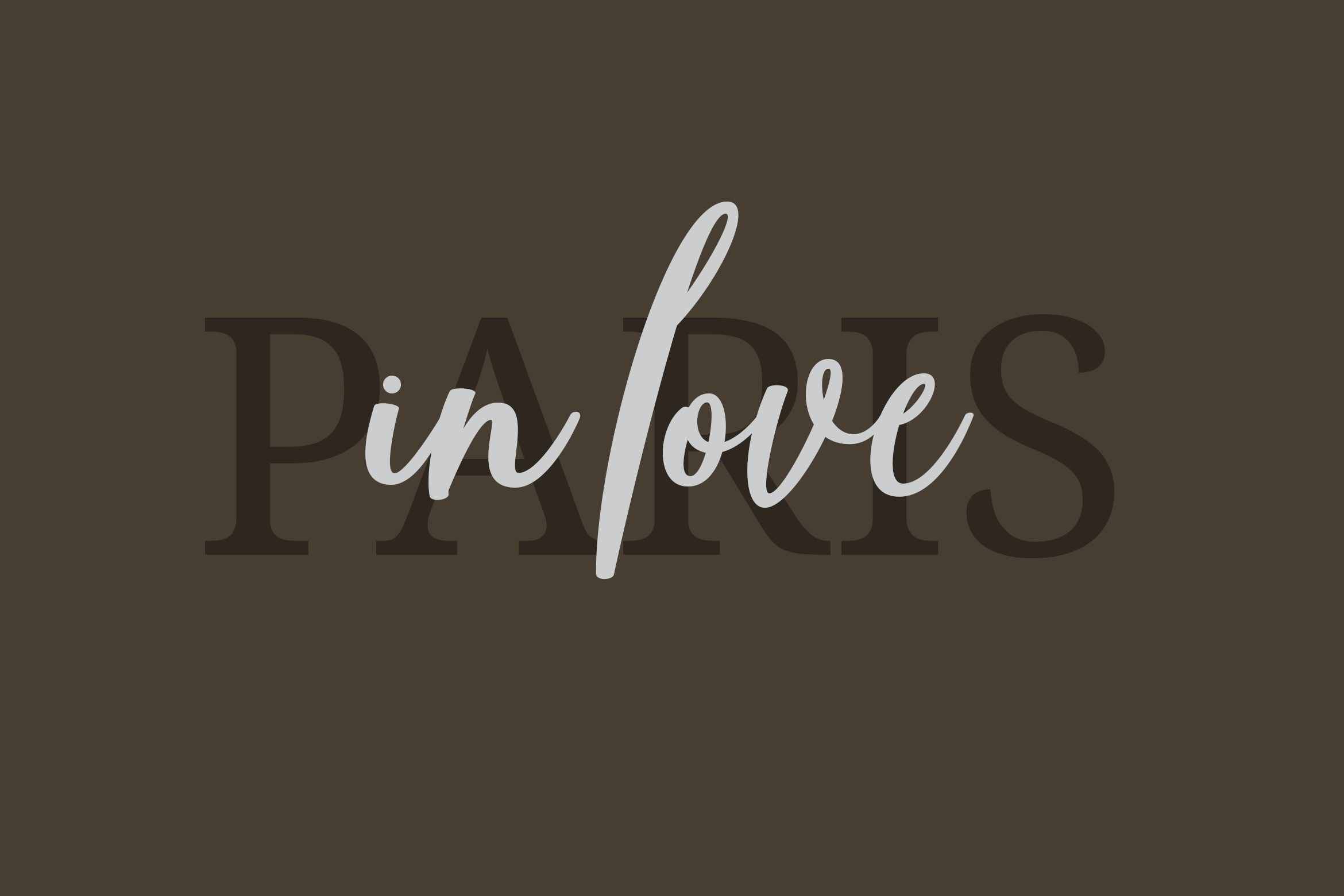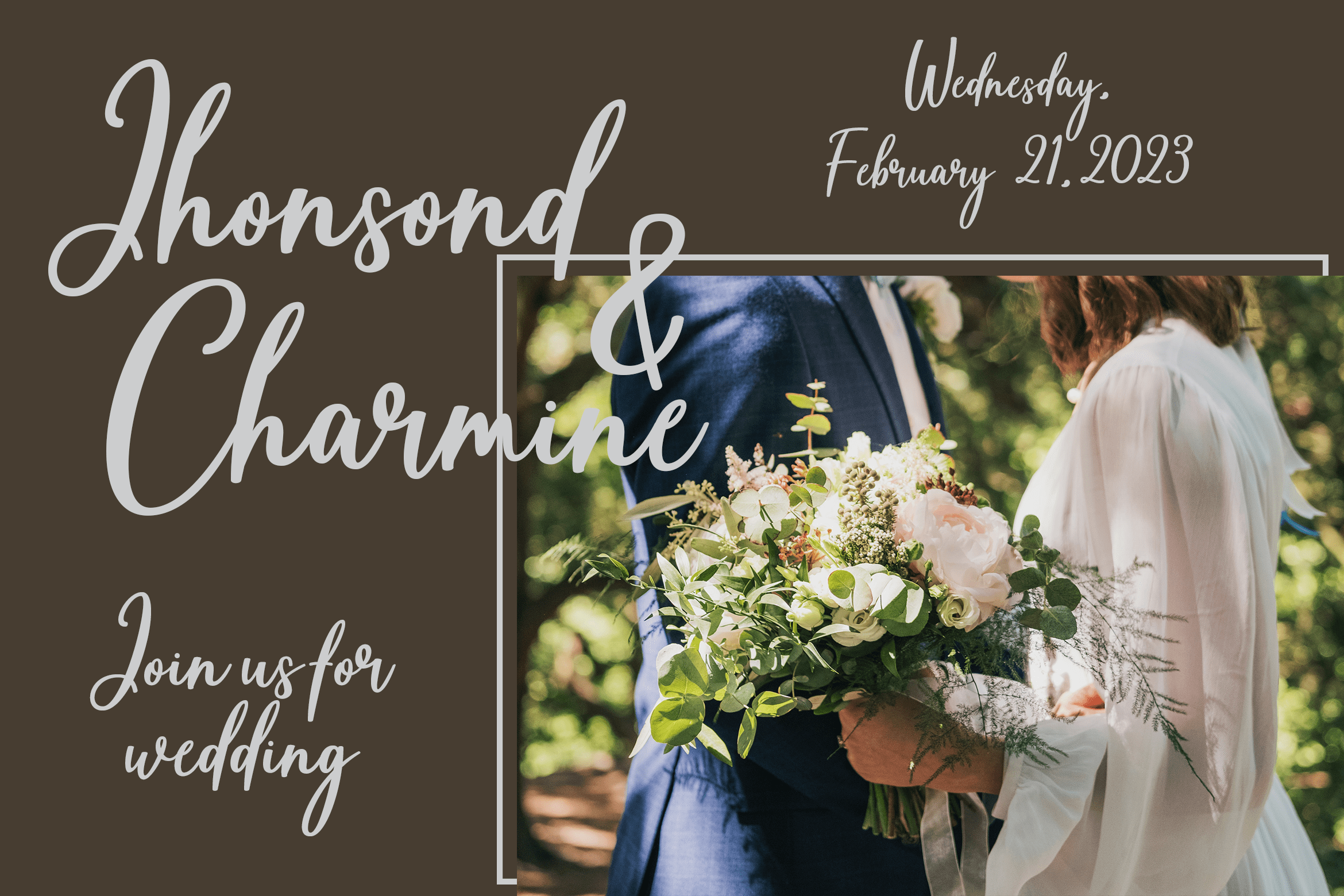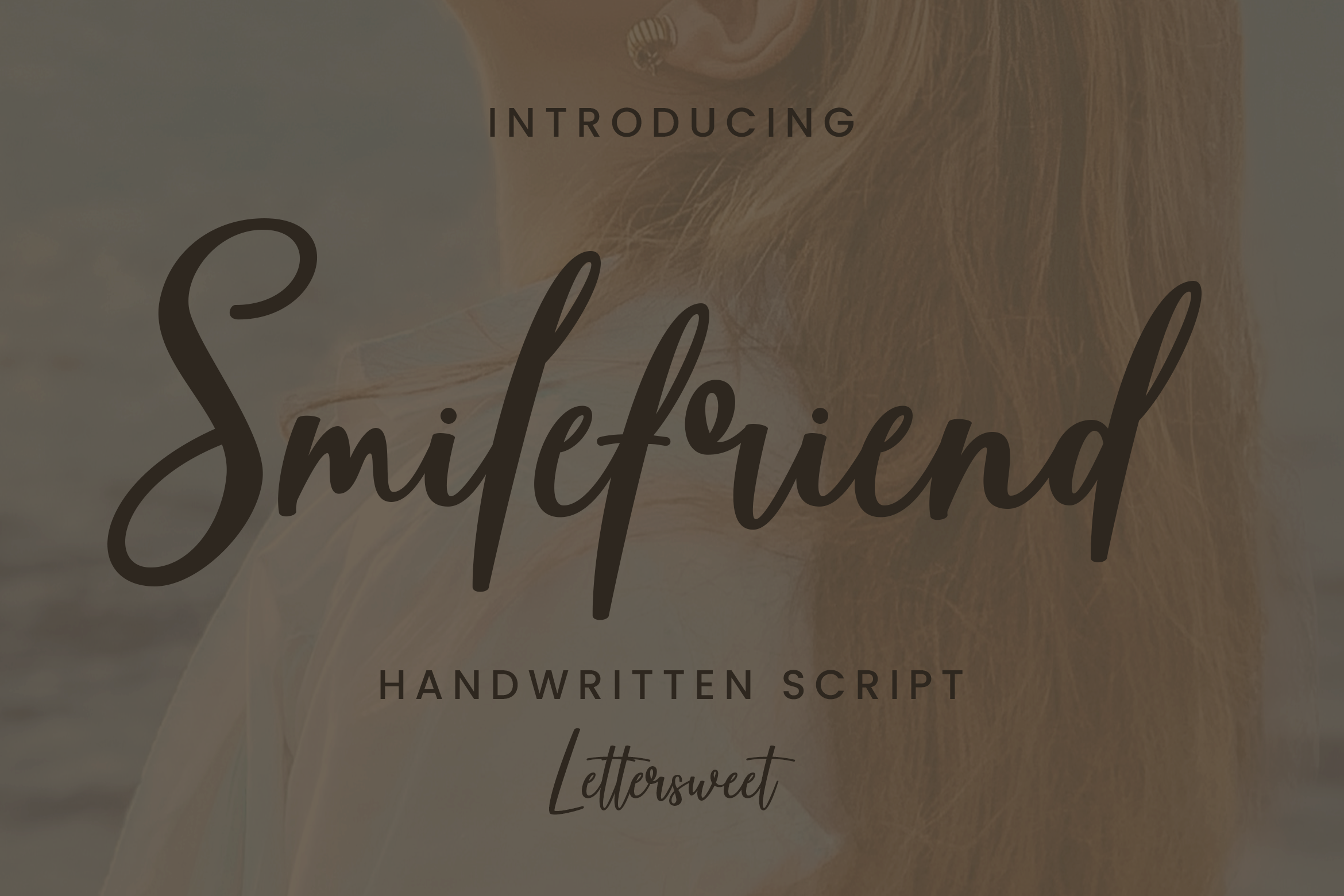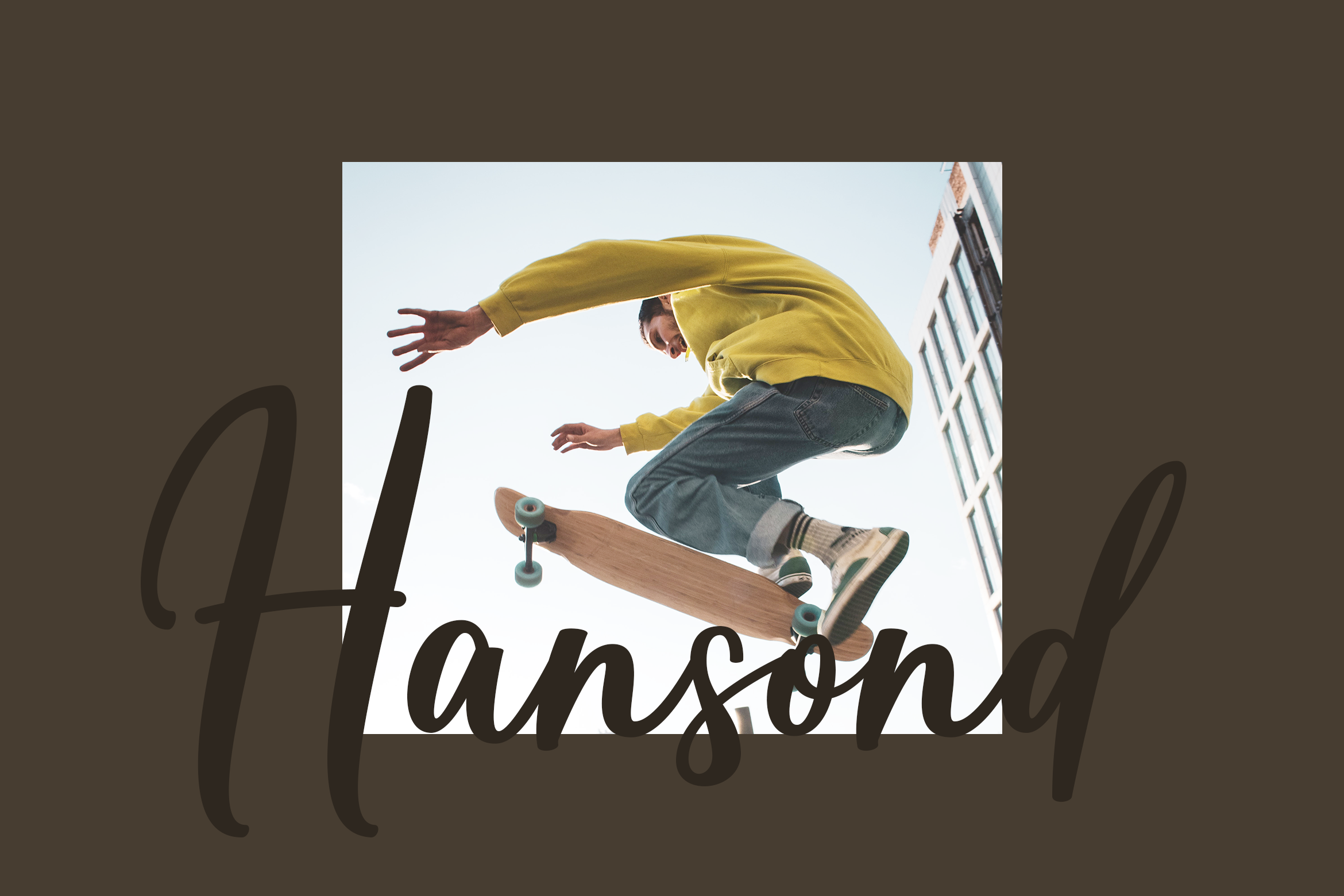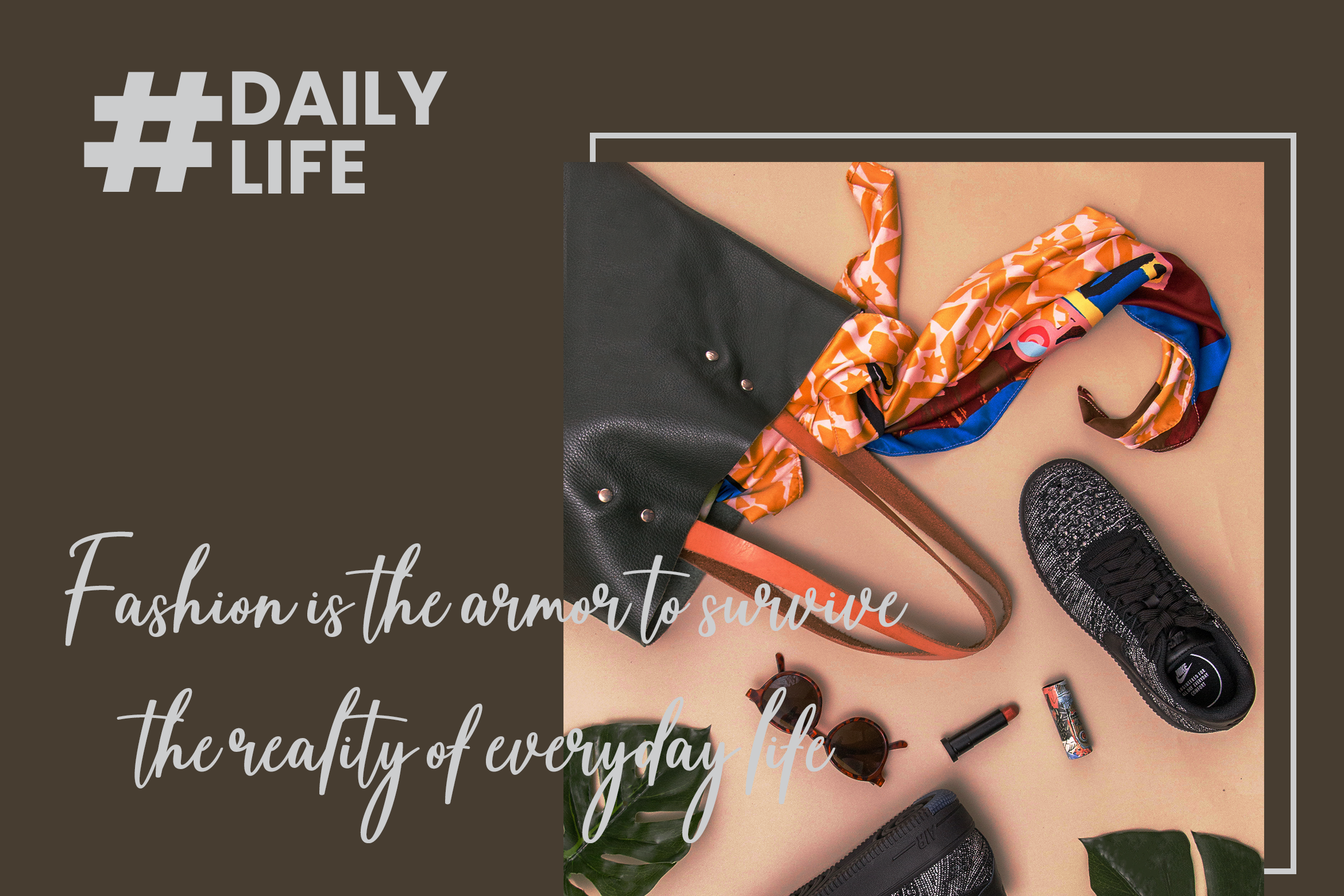
Smilefriend Font
Smilefriend Script Font is a beautiful and romantic script font. It looks stunning on wedding invitations, thank you cards, quotes, greeting cards, logos, business cards, and every other design which needs a lovely handwritten touch.